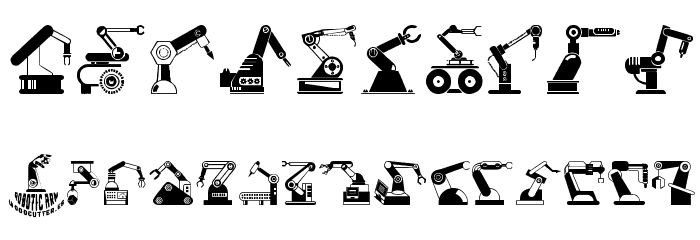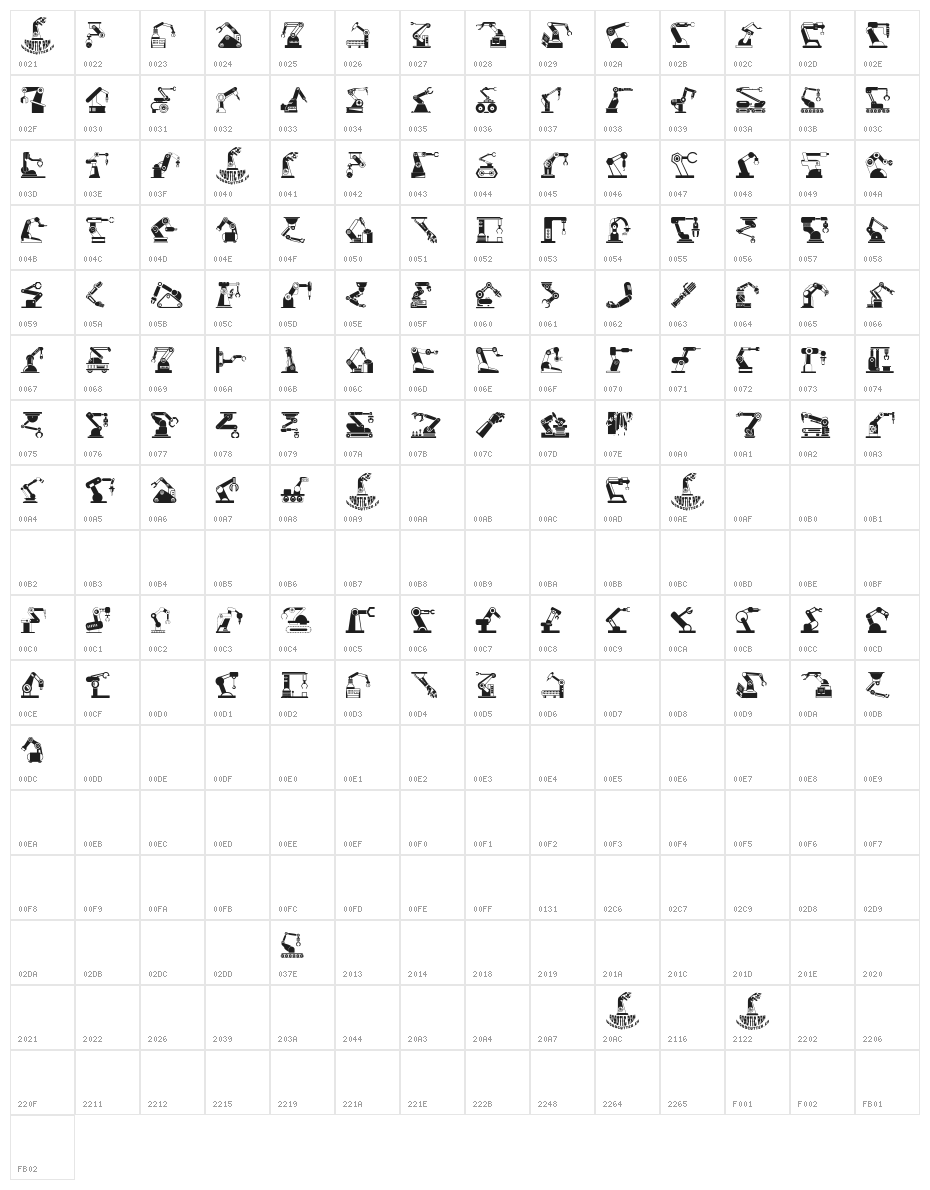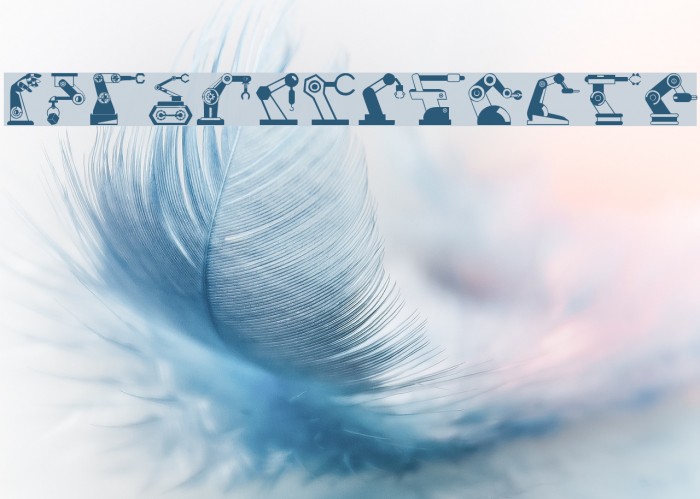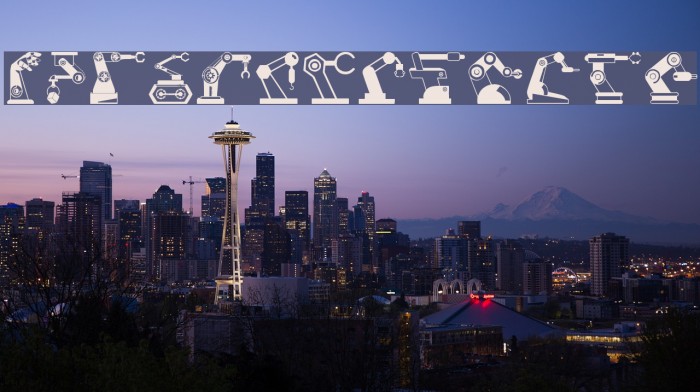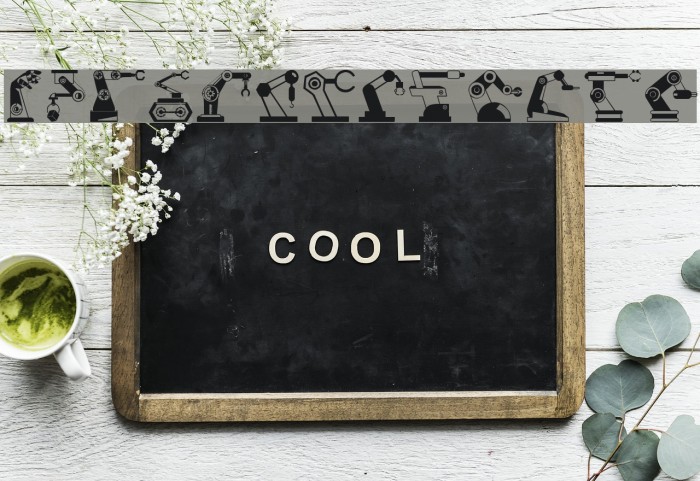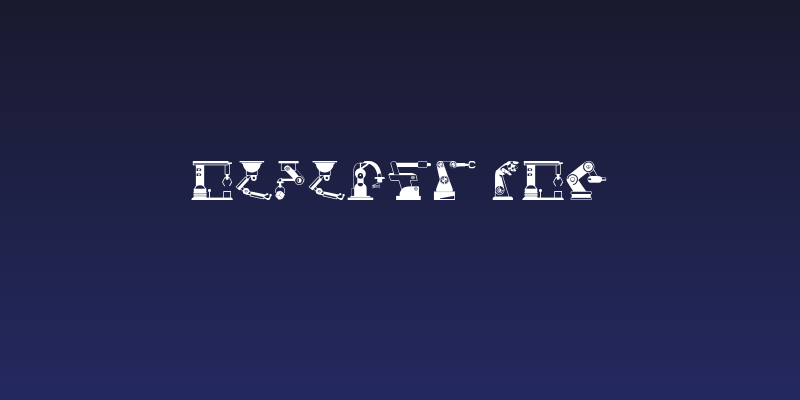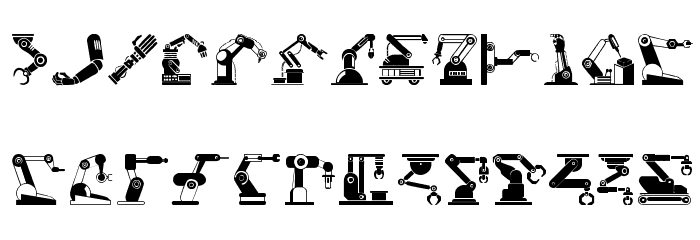
Robotic Arm Font
Robotic Arm Description
A decorative display font composed of various robotic arm illustrations forming each character, with high visual complexity and strong mechanical themes. Each glyph is a unique robotic arm or industrial machine, making the set highly illustrative and thematic.
| Overall Style | Decorative, Industrial, Futuristic |
| Use Case | Logos, Headlines, Posters, Themed graphics |
| Proposed Projects | Technology branding, robotics event posters, STEM educational materials, sci-fi book covers, industrial design presentations. |